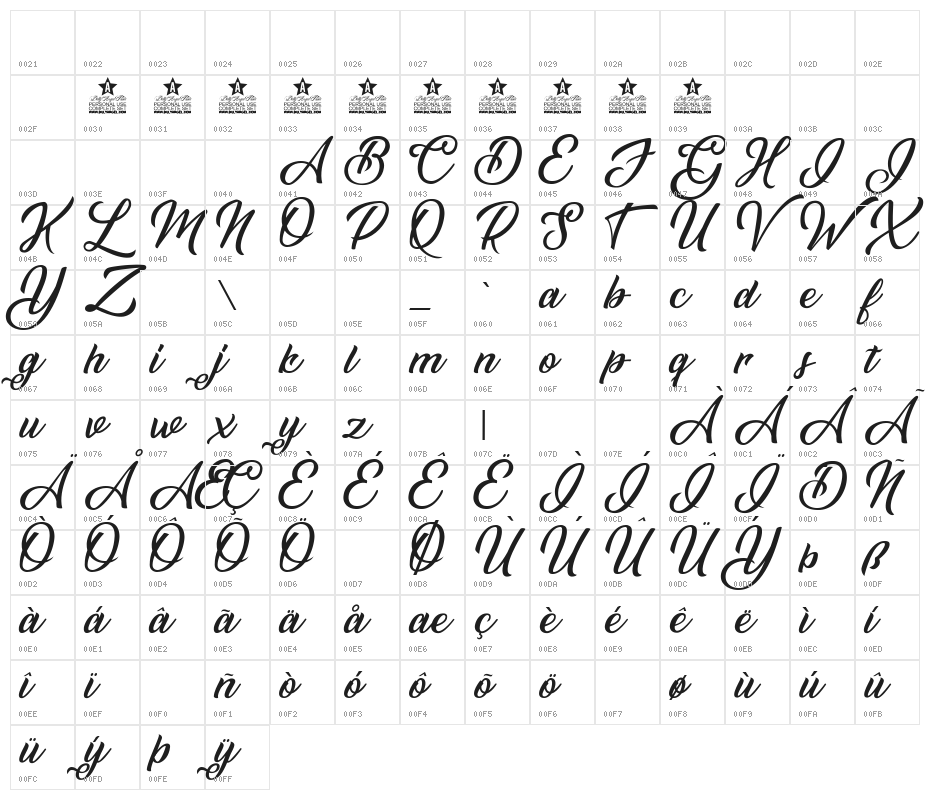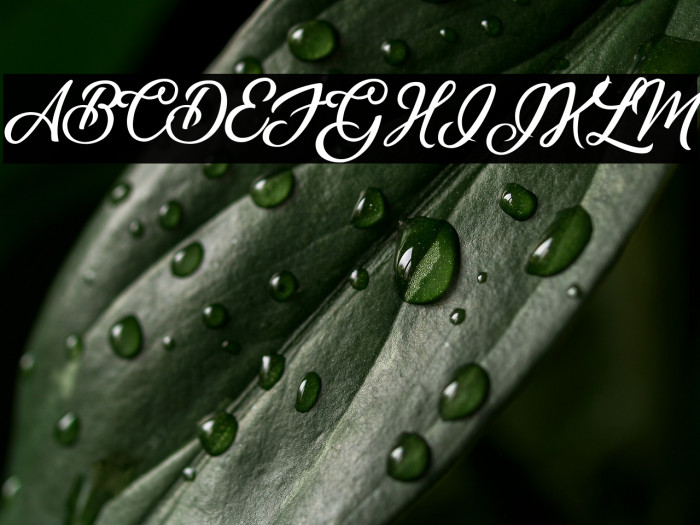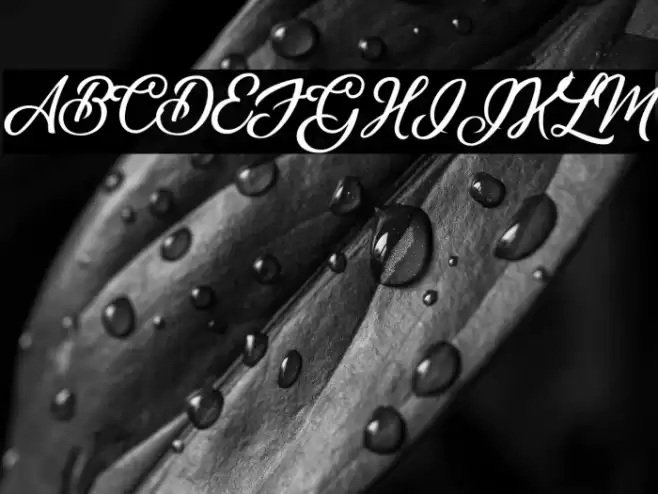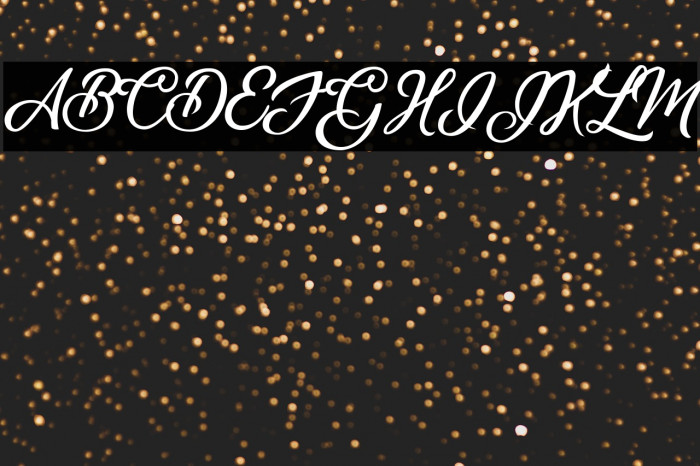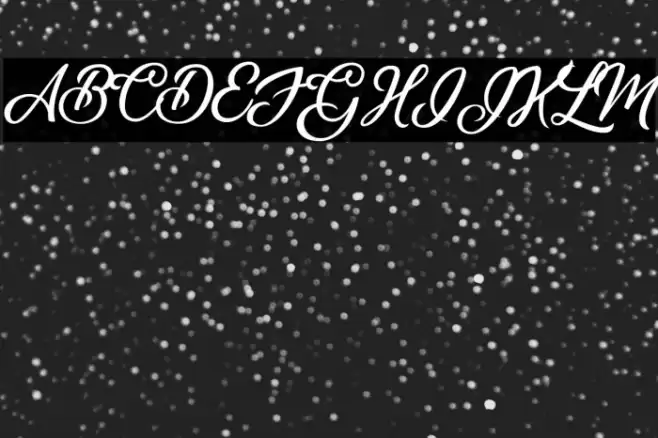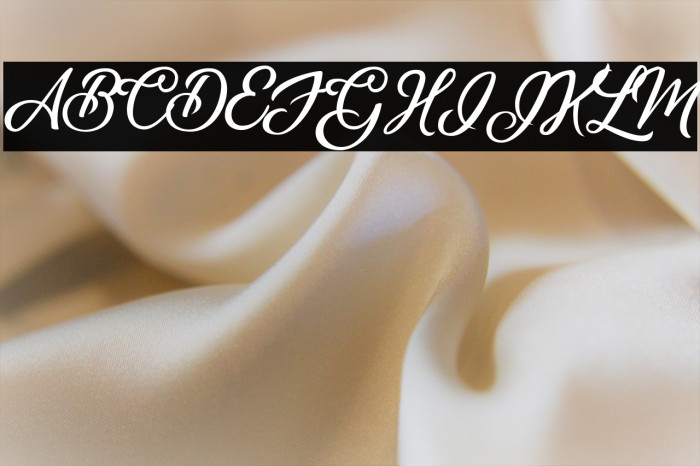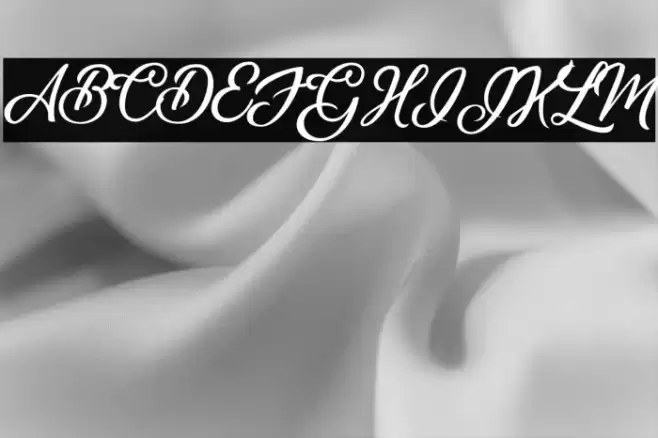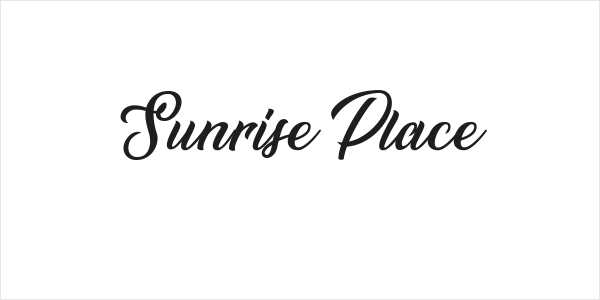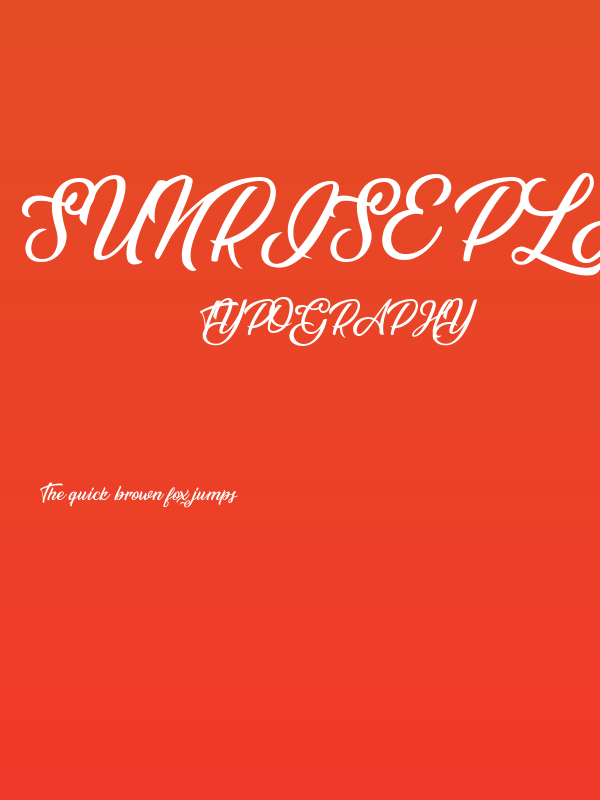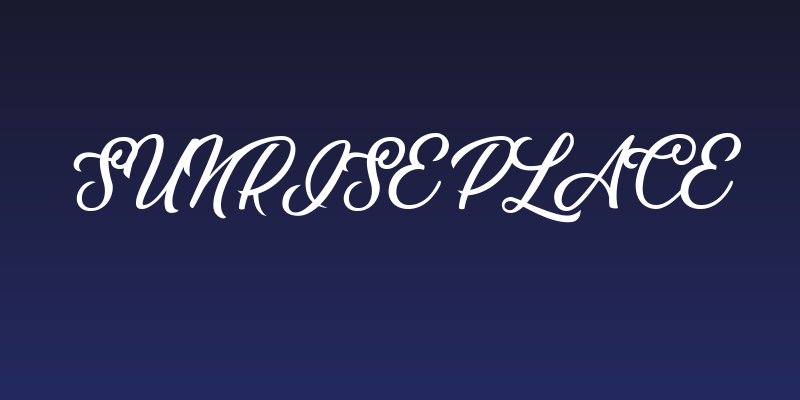
Sunrise Place Font
Sunrise Place Description
This font features a flowing, cursive style with elegant loops and swashes, giving it a sophisticated and artistic appearance. The uppercase letters are particularly ornate, with sweeping curves that add a sense of movement and grace. The lowercase letters maintain a consistent style, with smooth connections between characters, enhancing readability while retaining a decorative flair. The numbers and special characters are designed to match the overall aesthetic, ensuring a cohesive look across all text elements. This font is ideal for projects that require a touch of elegance and creativity.